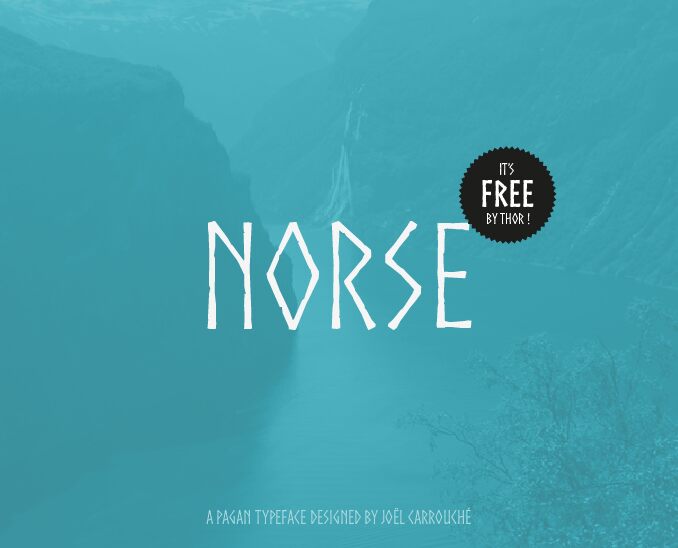
Norse Bold is a striking and distinctive font that immediately commands attention. Its angular, rugged letterforms exude a sense of power and vitality, with sharp edges and bold lines that evoke the raw beauty of ancient Nordic designs. This condensed font style lends itself well to impactful headlines, eye-catching logos, and dynamic graphic elements.
The font's Roman style provides a timeless quality, while the condensed width gives it a bold, compact presence. Norse Bold's unique aesthetic makes it an excellent choice for projects seeking a bold, contemporary visual identity with a touch of historical flair. Its versatility allows it to seamlessly integrate into a wide range of design contexts, from editorial spreads to product packaging.